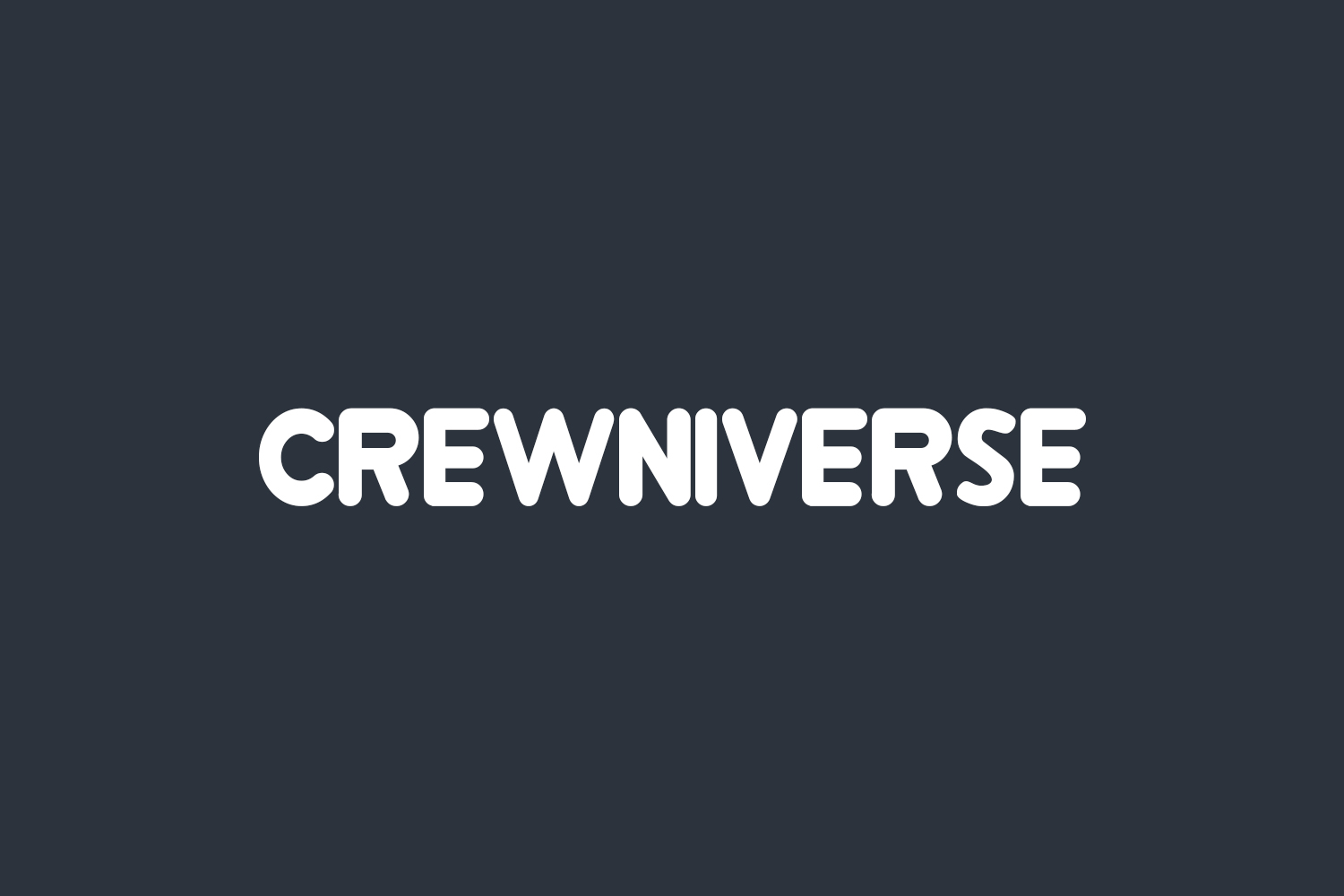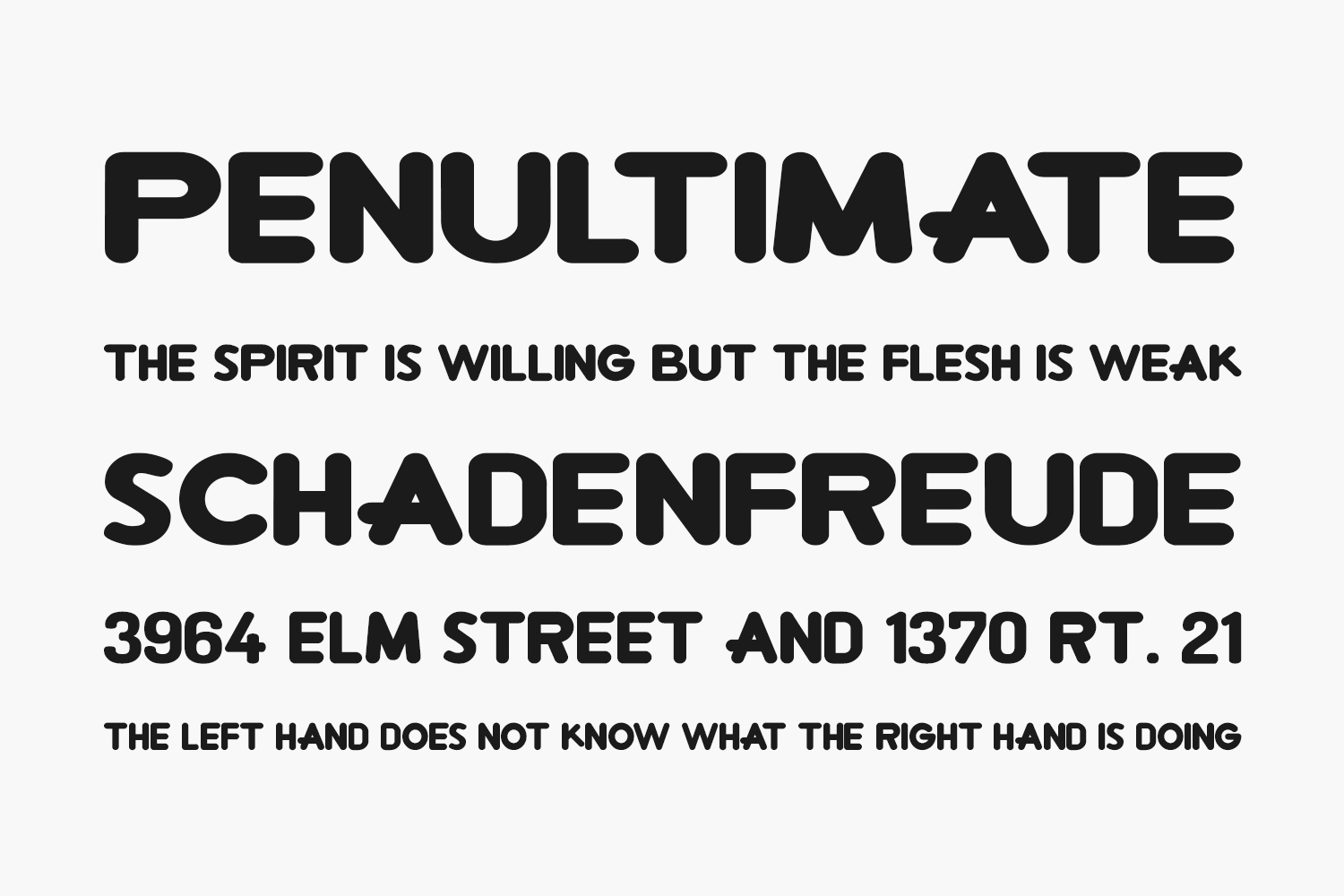
Crewniverse Free Font is a font that replicates the one used for the title cards of the TV show Steven Universe™, as well as the logo of Steven Crewniverse’s Tumblr. Crewniverse Free Font is free for personal or commercial use.